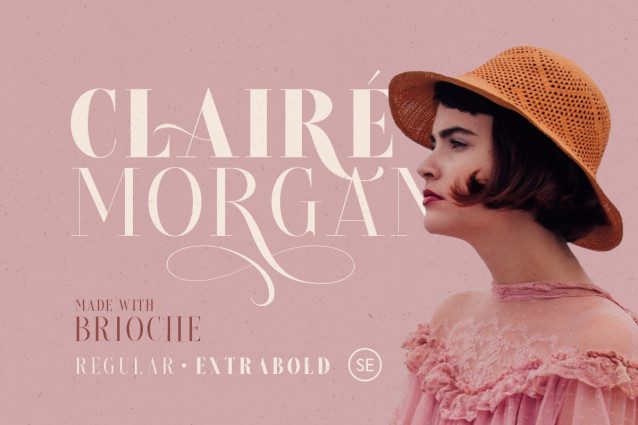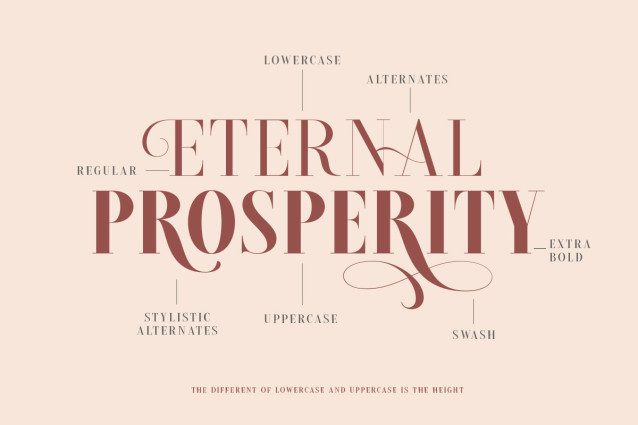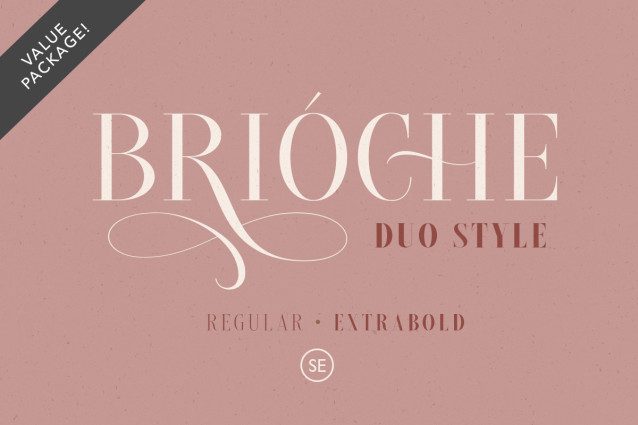
Brioche Font
Brioche Font is a classic and modern serif with a bunch of alternates for each characters that will make your presentation or logo even more stunning and stand out! With four style that you can use for several purpose! This fonts support Multi Language and already PUA Encoded!